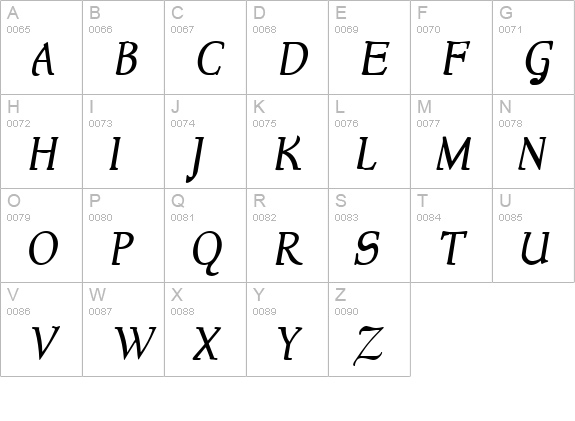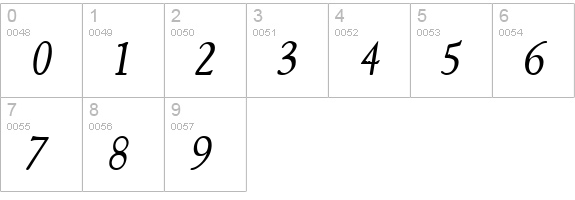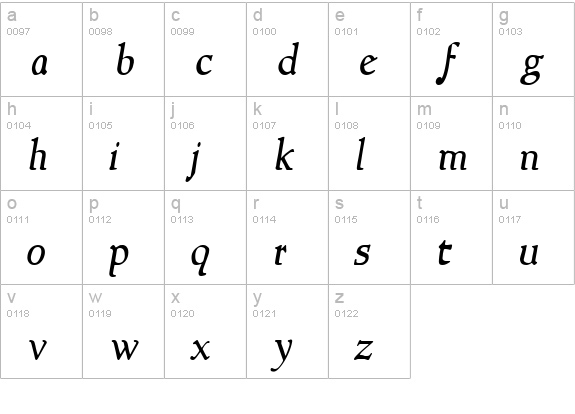
NewStyle Italic is a distinctive, italic variant in the NewStyle typeface family \xE2\x80\x94 well suited to design and typography projects.
Introducing NewStyle Italic font, a sleek and modern typeface that exudes elegance and sophistication. With its stylish slanted design, NewStyle Italic is perfect for adding a touch of flair to any project. This versatile font is ideal for a wide range of applications, from branding and marketing materials to invitations and social media graphics. Its clean lines and graceful curves make it a standout choice for those looking to make a statement with their typography. Best of all, NewStyle Italic is available for free download at FontsMarket.com. So go ahead and elevate your designs with this exquisite font today!